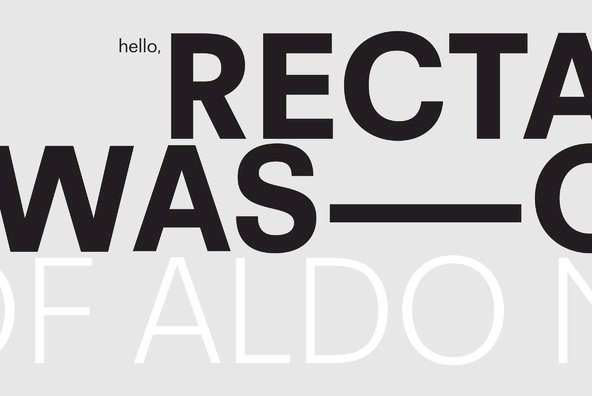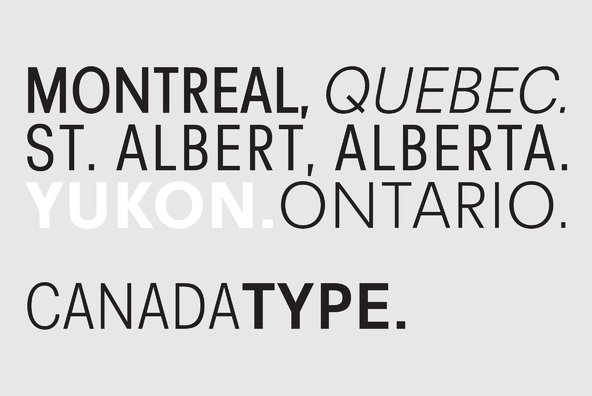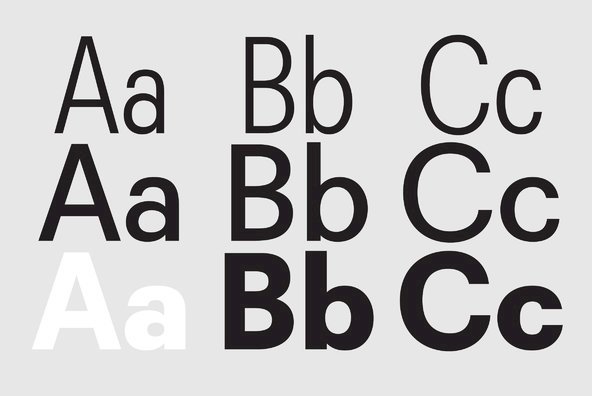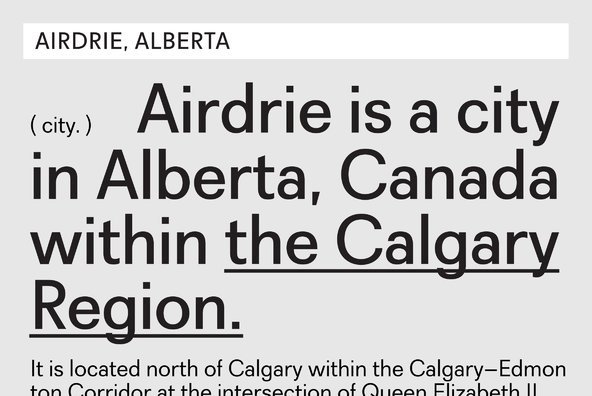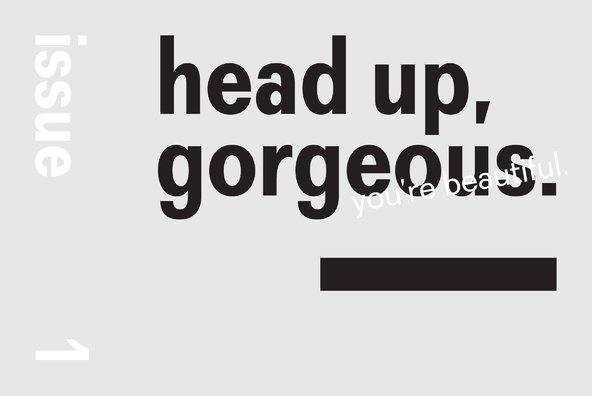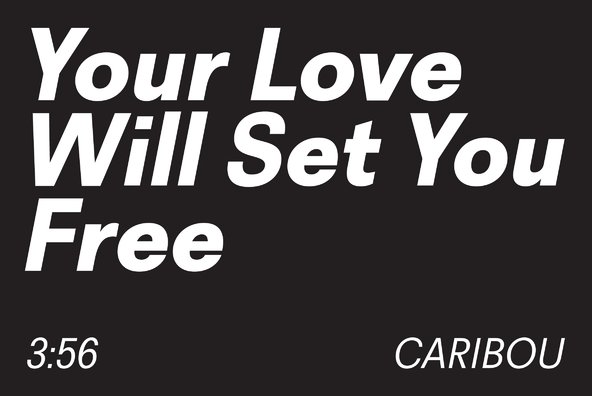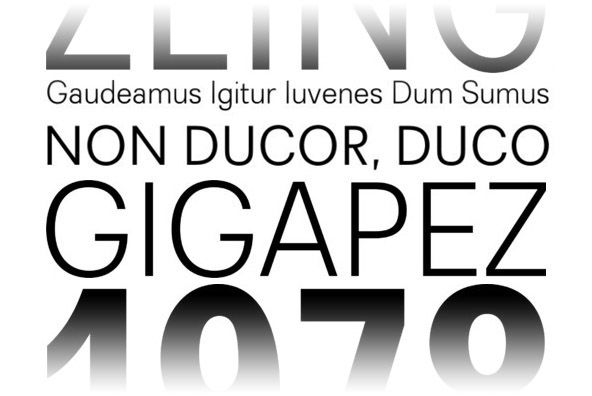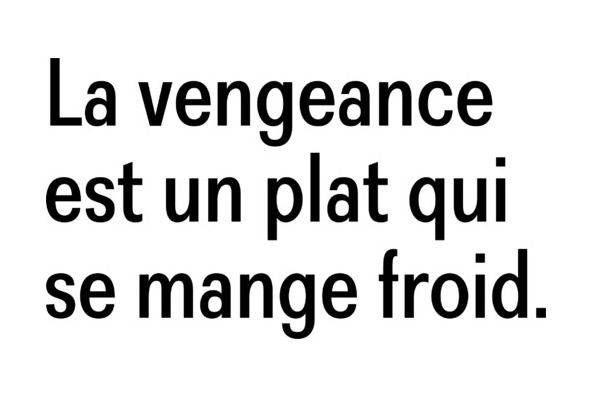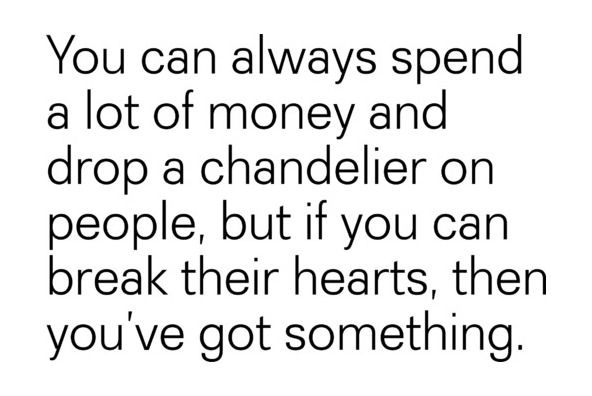
Recta was one of Aldo Novarese's earliest contributions to the massive surge of the European sans serif genre that was booming in the middle of the 20th century.
Recta was one of Aldo Novarese's earliest contributions to the massive surge of the European sans serif genre that was booming in the middle of the 20th century. Initially published just one year after Neue Haas Grotesk came out of Switzerland and Univers out of France, and at a time when Akzidenz Grotesk and DIN were riding high in Germany and Gill Sans was making waves in Great Britain, it was intended to compete with all of those foundry faces, and later came to be known as the Italian Helvetica. It maintains traditional simplicity as its high point of functionality, while showing minimal infusion of humanistic traits. It shows that the construct of the grotesk does not have to be rigid, and can indeed have a touch of Italian flair.
While the original Recta family lacked a proper suite of weights and widths, this digital version comes in five weights, corresponding italics, four condensed fonts, and small caps in four weights. It also includes a wide-ranging character set for extended Latin language support.